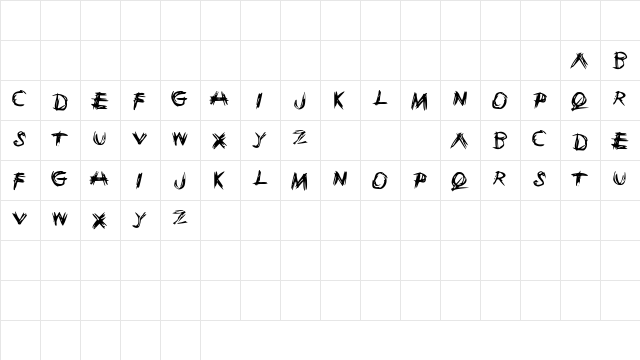
sketchie Medium Font Preview
sketchie Medium
sketchie Medium Font Details
Design Context for sketchie Typeface
sketchie is a composed and adaptable typeface that performs quietly and consistently across a wide range of design contexts.